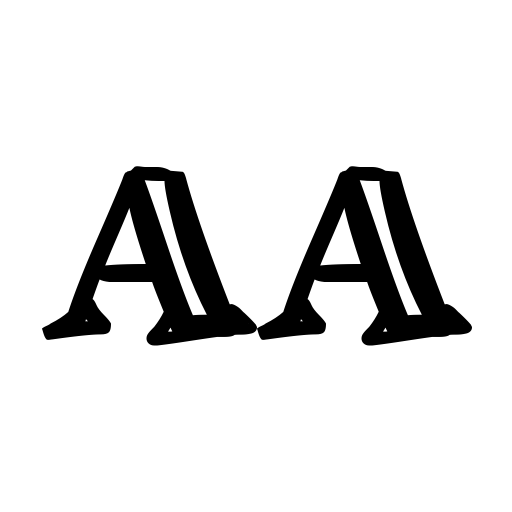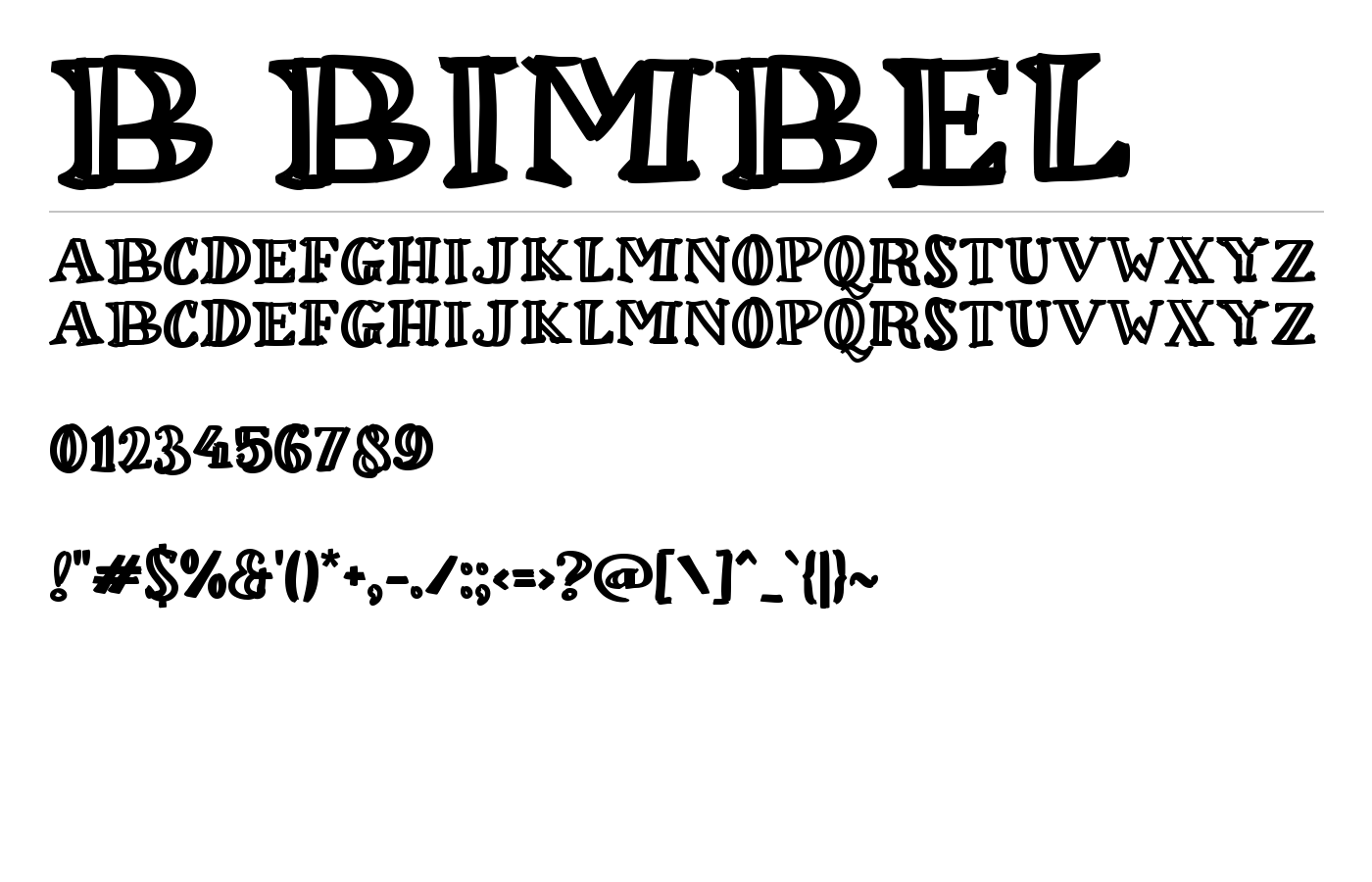
Bimbel is a bold, decorative serif font with a vintage circus or western vibe, featuring thick slab-like serifs and playful, uneven strokes. Its distinctive uppercase letters have quirky curves and contour variations, creating a fun yet strong personality ideal for eye-catching headlines, posters, and branding that seeks a nostalgic, quirky flair. This font works best in display settings where its unique character can shine without sacrificing readability.
b Bimbel Font